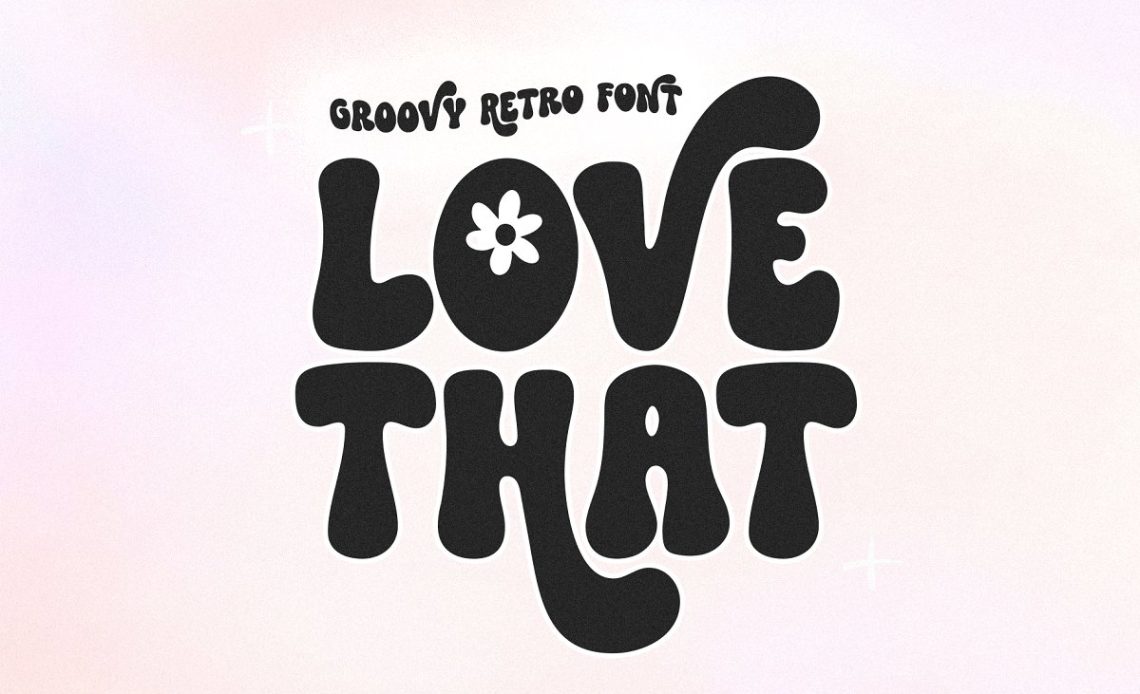
Introducing Love That | Retro Font, the ultimate font for speech bubble enthusiasts and retro design lovers! Created by the talented Kaitlynn Albani, this hand-drawn font exudes a groovy feel that will transport you back to the vibrant eras of the past.
Love That is not just your ordinary font – it's a font that demands attention. With its ALL CAPS style, it commands a strong presence, making it perfect for creating eye-catching designs that will leave a lasting impression. But that's not all! Love That also features lowercase swash letters, including a, h, k, m, n, r, u, v, w, y, and a unique flower-shaped "o," adding a touch of whimsy and charm to your creations.
Are you a fan of all things retro? Love That is the perfect choice for you! Whether you're designing vintage-inspired posters, creating trendy SVG designs, printing on shirts and mugs, or decorating your favorite items with stickers, this font will elevate your creations to a whole new level. Its versatile nature allows it to seamlessly blend into various design projects, making it a must-have for any creative endeavor.
But what truly sets Love That apart is its compatibility with Procreate. For all the digital artists out there, this font is a dream come true! With Love That, your Procreate designs will come to life with a touch of nostalgia and an explosion of creativity. Let your imagination run wild as you bring your digital masterpieces to fruition with this captivating font.